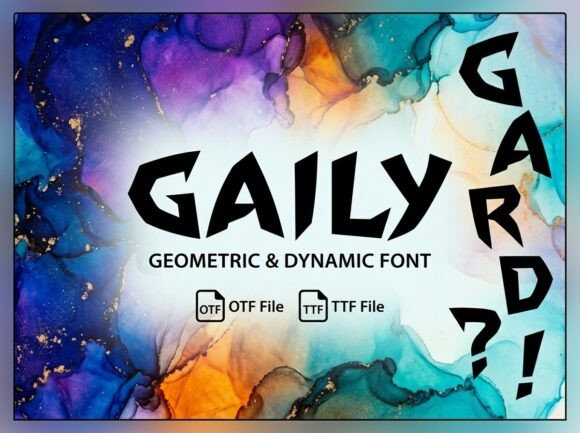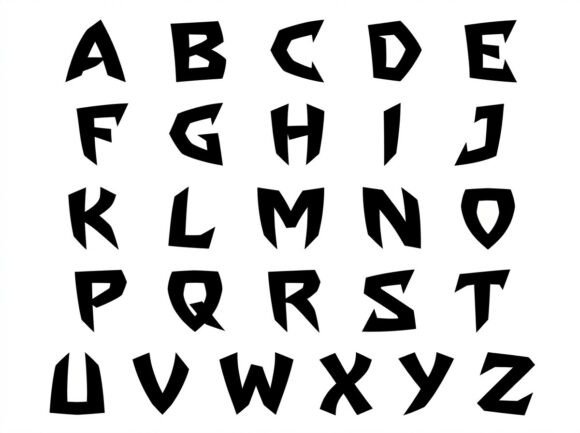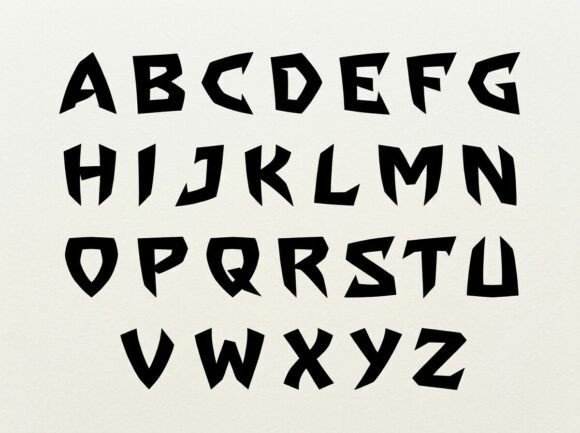
Introducing Gaily Font: The Ultimate Decorative Display Font
Are you tired of using the same old fonts for your designs? Look no further than Gaily Font, a stunning decorative display font that’s sure to turn heads. With its unique artistic elements and strong visual personality, this font is perfect for creators who want to break away from the ordinary and make a statement.
What Makes Gaily Font Special?
Gaily Font is a versatile decorative display font that’s designed to be the center of attention. Its unique artistic elements and strong visual personality make it perfect for a variety of design projects, from bold headlines and artistic logos to creative packaging. Whether you’re a graphic designer, artist, or crafter, this font is sure to inspire your creativity.
Key Features of Gaily Font
- Unique Artistic Elements: Gaily Font features unique artistic elements that set it apart from other fonts. Each letter is carefully crafted to make a statement, making it perfect for high-impact headlines, logos, and decorative initials.
- Strong Visual Personality: This font has a strong visual personality that’s sure to grab attention. Its bold and eye-catching design makes it perfect for designers who want to make a statement.
- Versatile: Gaily Font is versatile enough for a variety of design projects, from bold headlines and artistic logos to creative packaging.
- Professional and Polished Finish: Despite its bold and artistic design, Gaily Font maintains a professional and polished finish, making it perfect for designers who want to create high-quality designs.
Why Choose Gaily Font?
There are many reasons why Gaily Font is the perfect choice for designers and crafters. Here are just a few:
- Stand Out from the Crowd: With Gaily Font, you can create designs that stand out from the crowd. Its unique artistic elements and strong visual personality make it perfect for designers who want to make a statement.
- Perfect for Creative Projects: Whether you’re working on a graphic design project, creating art, or crafting, Gaily Font is the perfect choice. Its versatility and professional finish make it suitable for a wide range of creative projects.
Tips for Using Gaily Font
Here are a few tips for using Gaily Font in your designs:
- Use it for Headlines: Gaily Font is perfect for headlines, titles, and captions. Use it to add a touch of elegance and sophistication to your designs.
- Experiment with Colors: Gaily Font looks great in a variety of colors. Experiment with different colors and combinations to find the one that works best for your design.
- Pair it with Other Fonts: Gaily Font can be paired with other fonts to create a unique and interesting design. Experiment with different font combinations to find the one that works best for your project.
Gaily Font is a stunning decorative display font that’s perfect for designers and crafters who want to make a statement. With its unique artistic elements, strong visual personality, and versatility, this font is sure to inspire your creativity. Whether you’re working on a graphic design project, creating art, or crafting, Gaily Font is the perfect choice. So why wait? Purchase Gaily Font today and start creating stunning designs that turn heads!